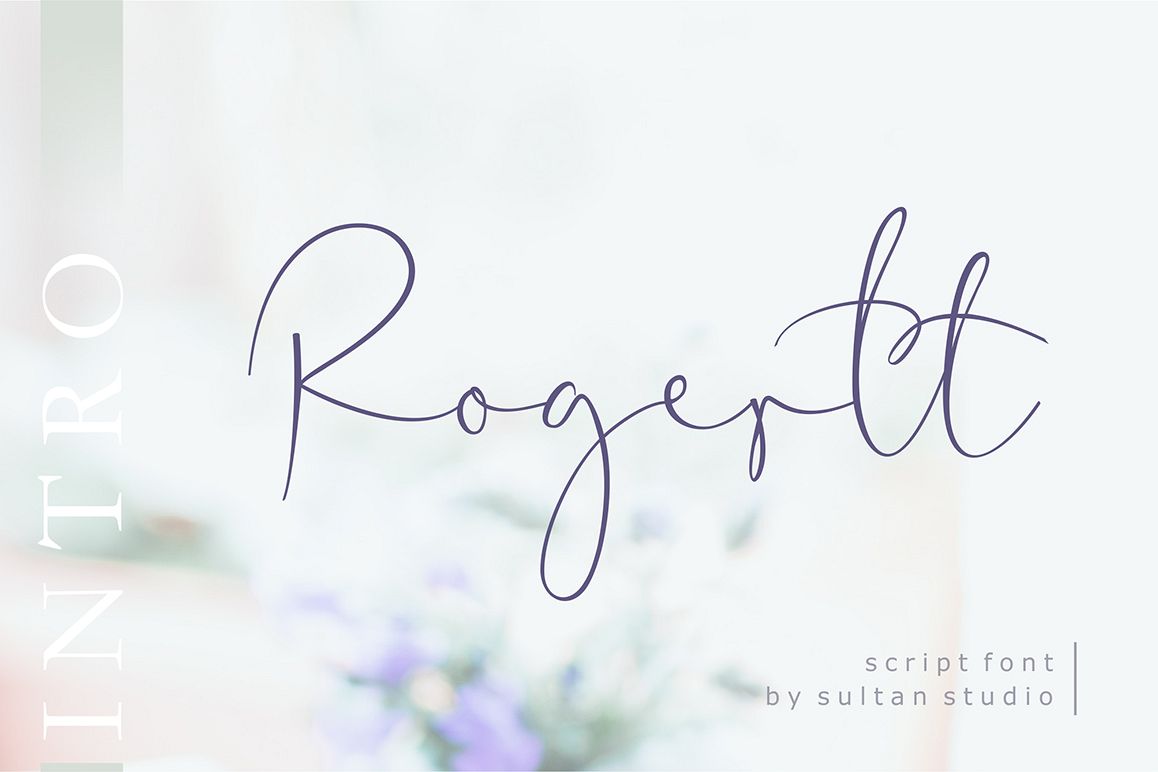
I introduced my second font Rogertt
this is a modern handwriting that is unique and cute ... please try it is definitely fun and you will be happy.
With a style like this, this font will be suitable in use for logo's, branding projects, homeware designs, product packaging, mugs, quotes, posters, shopping bags, logo's, t-shirts, book covers, name card, invitation cards, greeting cards, and all your other lovely projects.